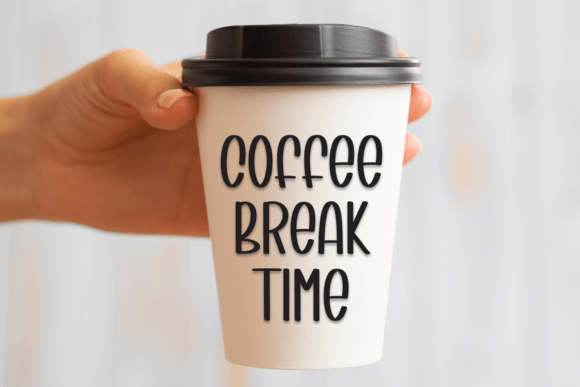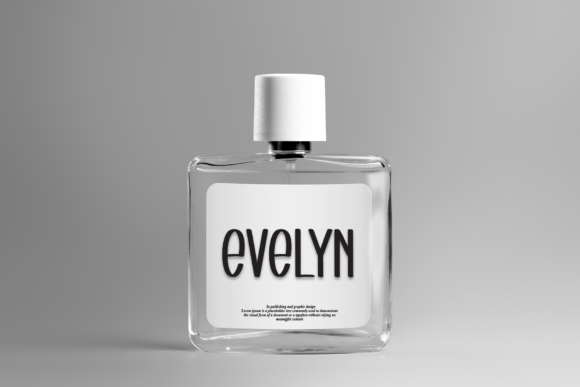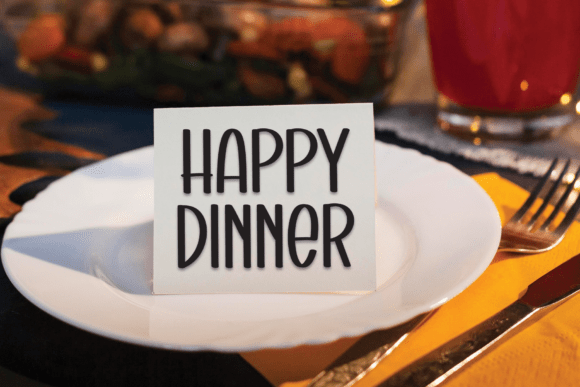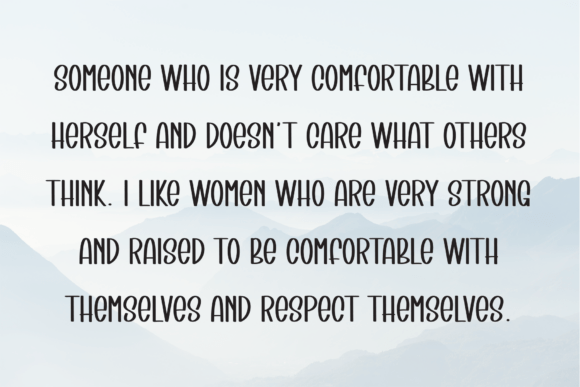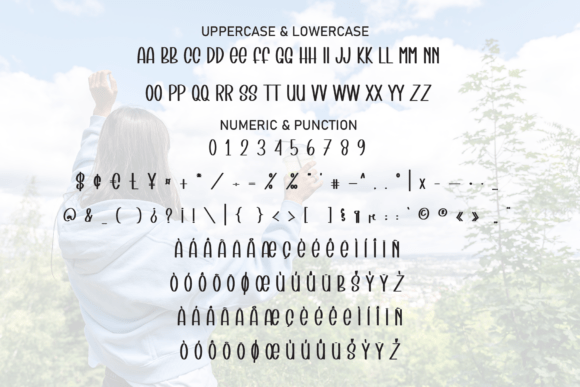
Introducing Day Dream Font: Elevate Your Designs with a Sleek and Modern Typeface
In the world of typography, a well-crafted font can make all the difference in elevating your design to the next level. If you’re a designer or crafter looking for a typeface that exudes a minimalist, contemporary aesthetic, look no further than the Day Dream font. This technical and sleek display font is perfect for those who appreciate clean lines, simplicity, and a touch of sophistication.
The Characteristics of Day Dream Font
Day Dream is a typeface creative style font that boasts exceptionally tall and narrow letterforms, rendered with a consistent monolinear weight. This unique combination gives the font its distinctive personality, characterized by an organized vertical rhythm and a high x-height. The result is a visual flow that is both modern and approachable.
One of the standout features of Day Dream is its subtle hand-lettered irregularities. These gentle imperfections add a warm, human touch to the font, preventing it from feeling too rigid or mechanical. This blend of precision and personality makes Day Dream an excellent choice for a wide range of design applications.
Perfect for Modern Designs
So, what types of projects are best suited to the Day Dream font? The answer is diverse and exciting. Here are a few ideas to get you started:
- Architectural title blocks: The font’s sleek, modern aesthetic and tall letterforms make it an excellent choice for architectural designs, such as title blocks, signage, and building facades.
- Modern lifestyle branding: Day Dream’s sophisticated, high-end feel makes it perfect for luxury brands, fashion labels, and lifestyle products.
- Minimalist editorial layouts: The font’s clean lines and simple aesthetic make it an excellent choice for editorial designs, such as magazines, newspapers, and blogs.
- Sophisticated digital headers: Day Dream’s modern, technical feel makes it well-suited to digital applications, such as website headers, social media graphics, and digital advertising.
Why Choose Day Dream Font?
With so many fonts available, why choose Day Dream? Here are just a few compelling reasons:
- Unique aesthetic: Day Dream’s distinctive blend of minimalist and modern elements sets it apart from other fonts on the market.
- Versatility: The font’s adaptability makes it suitable for a wide range of design applications, from print to digital.
- Ease of use: Day Dream’s clean lines and simple aesthetic make it easy to read and work with, even for complex designs.
- High-quality design: The font’s technical precision and attention to detail ensure a high-quality finish that will elevate your designs.
In conclusion, the Day Dream font is an exceptional choice for designers and crafters seeking a sleek, modern typeface that embodies a minimalist, contemporary aesthetic. Its unique blend of precision and personality makes it perfect for a wide range of design applications, from architectural title blocks to sophisticated digital headers. With its versatility, ease of use, and high-quality design, Day Dream is sure to become a staple in your font library.